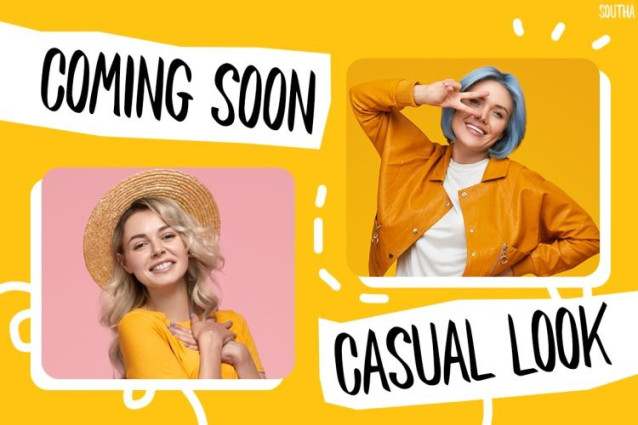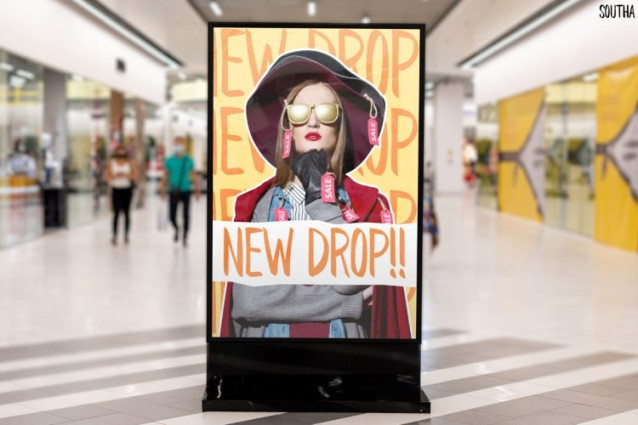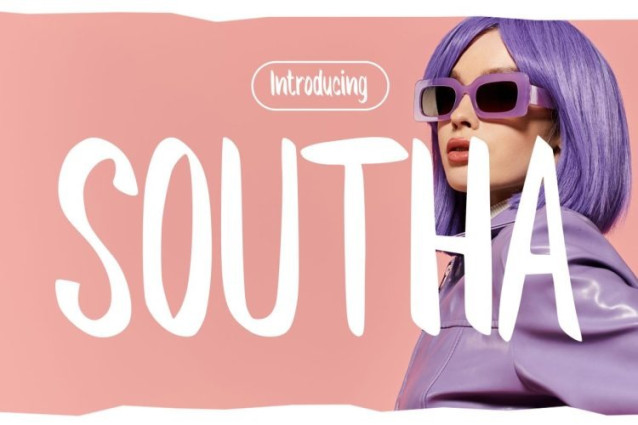
Southa Font
Southa Font a fresh, stylish handwritten feel that instantly elevates your visuals. Moreover, its tall, slightly irregular strokes create an authentic hand-drawn look, while still keeping everything clean and readable. In addition, the soft curves and playful flow give your text a natural, effortless charm. As a result, this font feels both trendy and personal, making it perfect for eye-catching social content. Furthermore, Southa blends aesthetic beauty with function, so your message not only looks good but also connects emotionally with your audience.
Southa is designed to deliver a modern handwritten style with a chic and feminine touch. In particular, it shines in bold headlines, Instagram posts, story templates, and lifestyle branding. Additionally, its unique letterforms add personality without sacrificing clarity, which makes it highly versatile. Whether you are creating fashion content, quotes, or promotional graphics, Southa helps your designs feel more alive and expressive. Therefore, it’s a perfect choice for creatives who want a balance between style and readability.
This font is ideal for content creators, influencers, designers, and brands in fashion, beauty, and lifestyle niches. Moreover, it works beautifully for social media campaigns, personal branding, packaging, and editorial layouts. In addition, small businesses and modern startups can use Instagram Font Southa to create a warm, relatable identity. So, if you want your content to feel authentic, stylish, and engaging, this font is made for you.